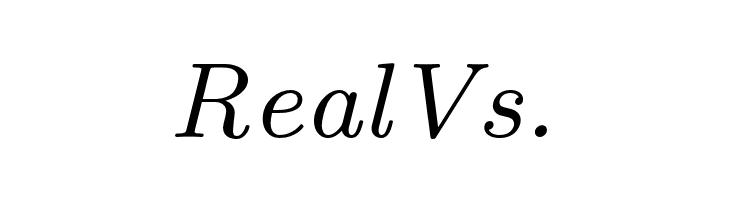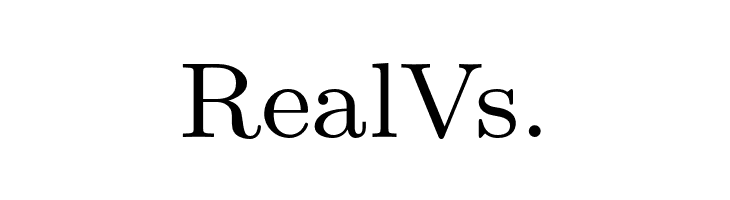
A classic serif font with elegant strokes and well-proportioned characters.
A bold, classic serif font with high contrast and pronounced serifs.
An elegant and classic serif italic font with smooth, flowing letterforms.
A classic serif font with elegant strokes and refined proportions.
A bold, classic serif font with high contrast and strong readability.
An elegant italic serif font with refined curves and classic style.
A classic serif font with elegant strokes and balanced proportions.
An elegant serif font with an oblique slant and moderate stroke contrast.
A classic serif font with elegant strokes and balanced proportions.
A classic serif font with an elegant oblique slant, offering sophistication and readability.
A classic serif font with strong, authoritative characters and sharp serifs.
A classic oblique serif font with elegant proportions and moderate contrast.
A classic serif font with high contrast and elegant strokes.
A bold, slanted serif font with elegant and dynamic characteristics.
Elegant serif font with a slant, featuring moderate contrast and classic styling.
A classic, elegant serif font with a slight slant and medium contrast.
Elegant serif font with a slant, offering a classic and sophisticated look.
A classic serif font with a slant, offering elegance and readability.
A classic serif font with elegant curves and a refined, traditional appearance.
A bold, modern sans-serif font with clear, evenly spaced characters.
A bold and oblique modern font with smooth, consistent strokes.
A modern sans-serif font with an oblique style, offering clarity and dynamic appeal.
A clean, modern sans-serif font with excellent readability and balance.
A clean, modern sans-serif font with balanced spacing and consistent stroke width.
A modern, oblique sans-serif font with clean lines and a sleek appearance.
A clean, modern sans-serif font with consistent stroke width and excellent legibility.
A modern, oblique sans-serif font with a clean and professional look.
A modern, clean sans-serif font with excellent readability and balanced design.
A modern, oblique sans-serif font with clean lines and dynamic style.
A clean, modern sans-serif typeface with uniform stroke width and excellent readability.
A modern, oblique sans-serif font with clean lines and a dynamic appearance.
A modern, sans-serif typeface with clean lines and balanced proportions.
A modern, oblique sans-serif font with a clean and condensed design.
A modern, clean sans-serif font with a slightly condensed style.